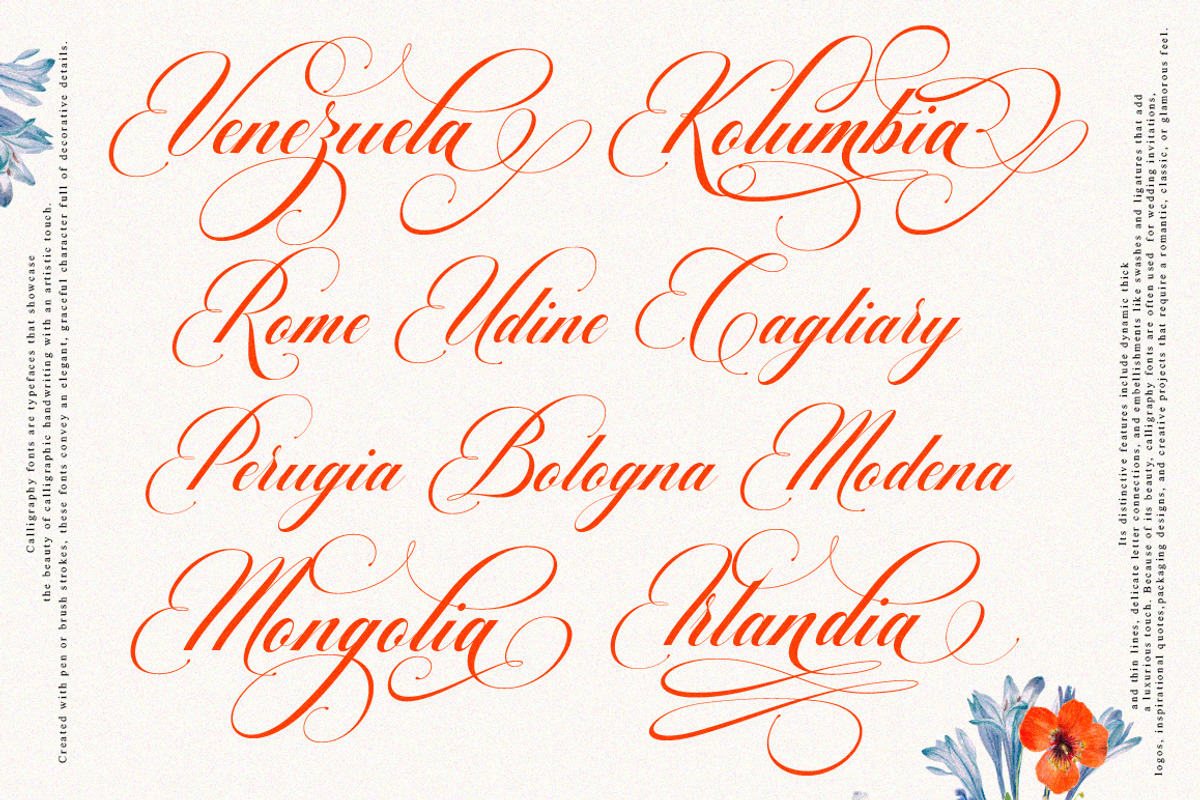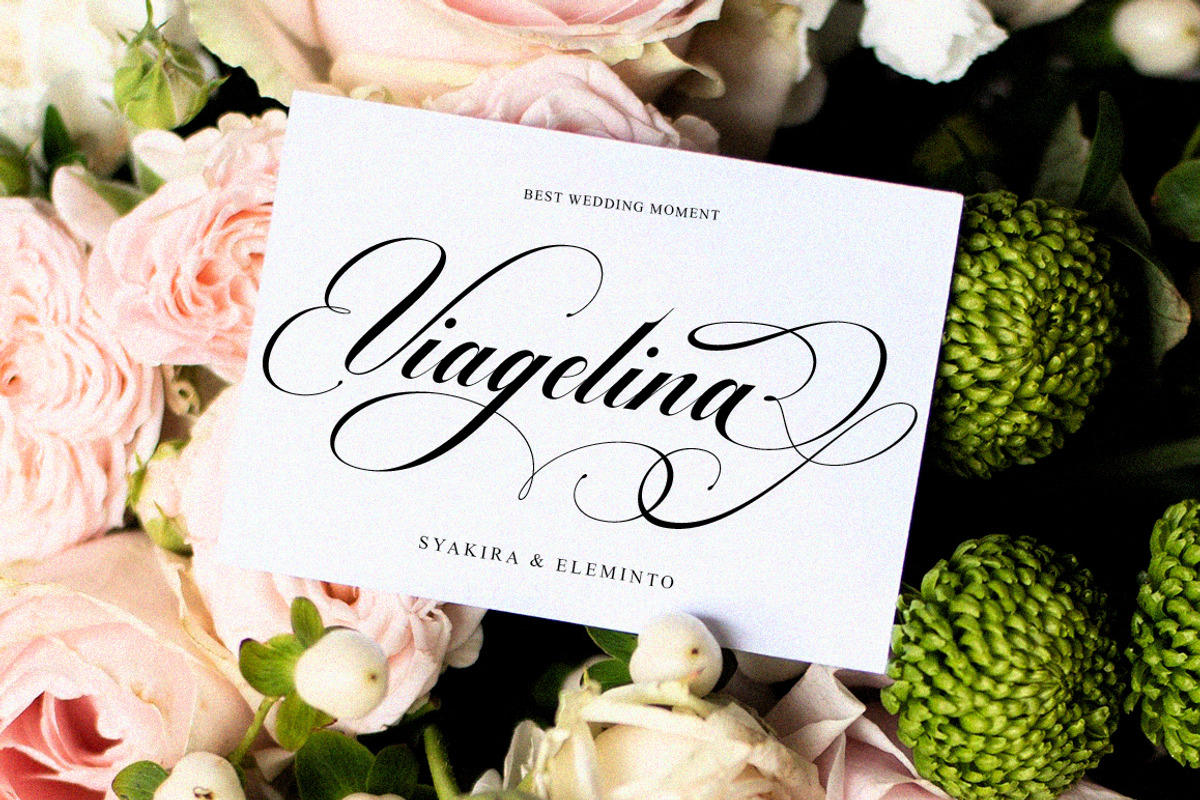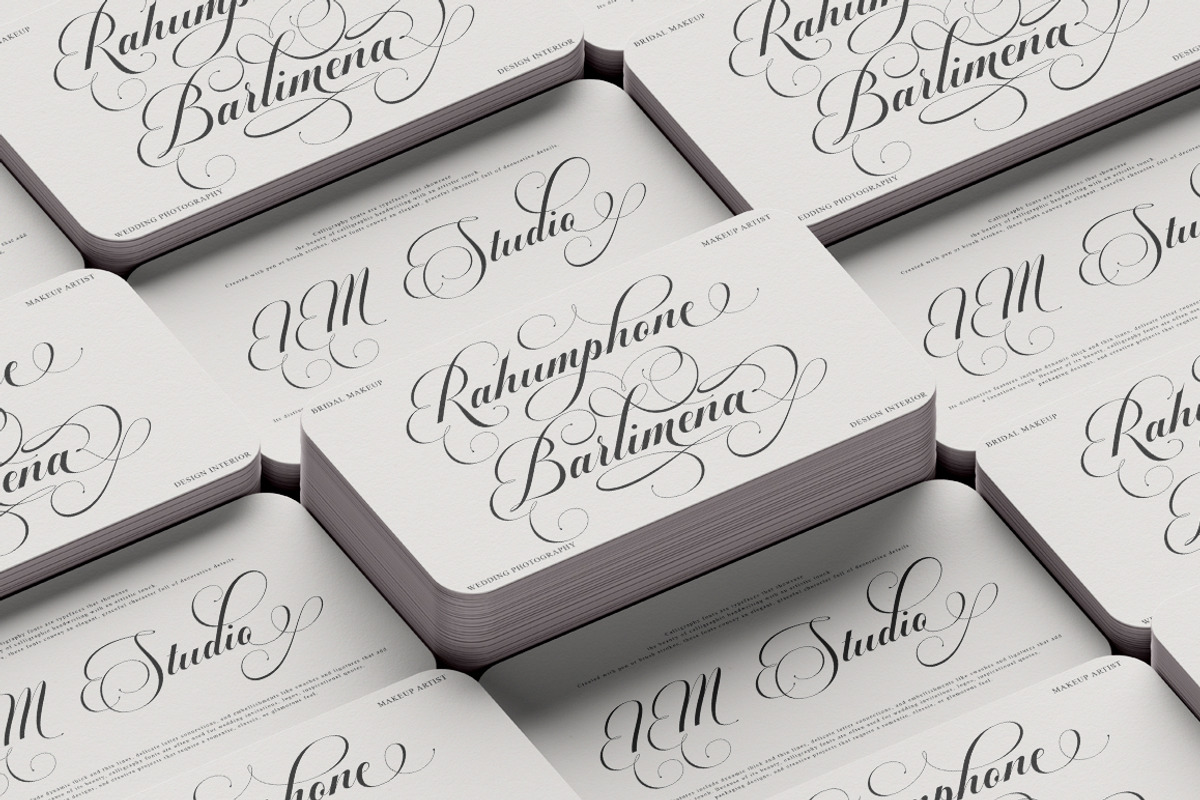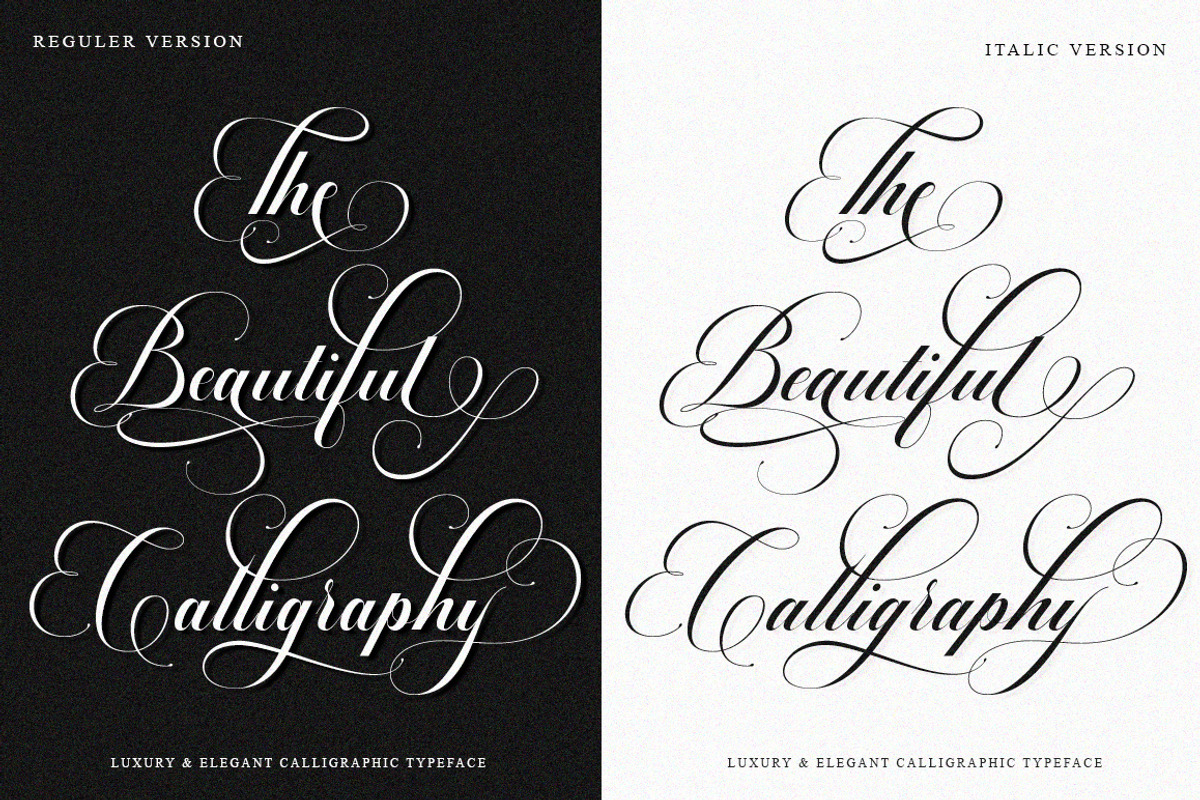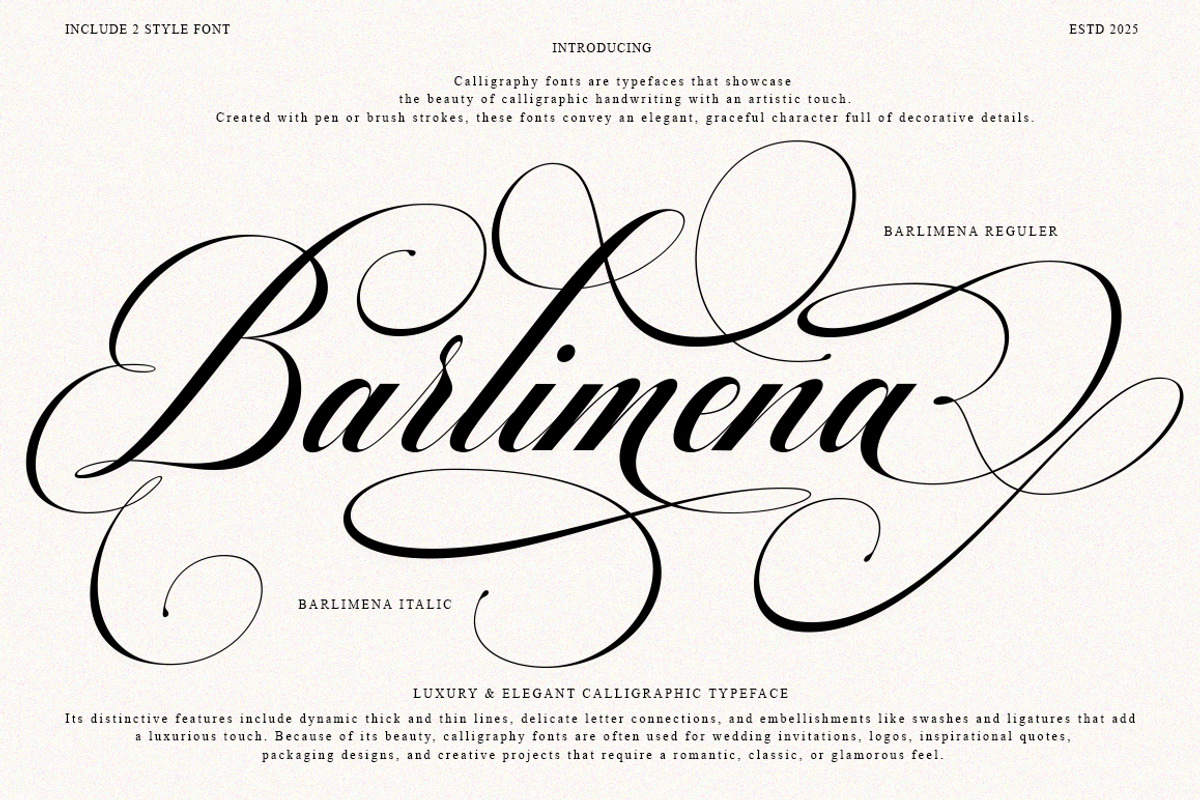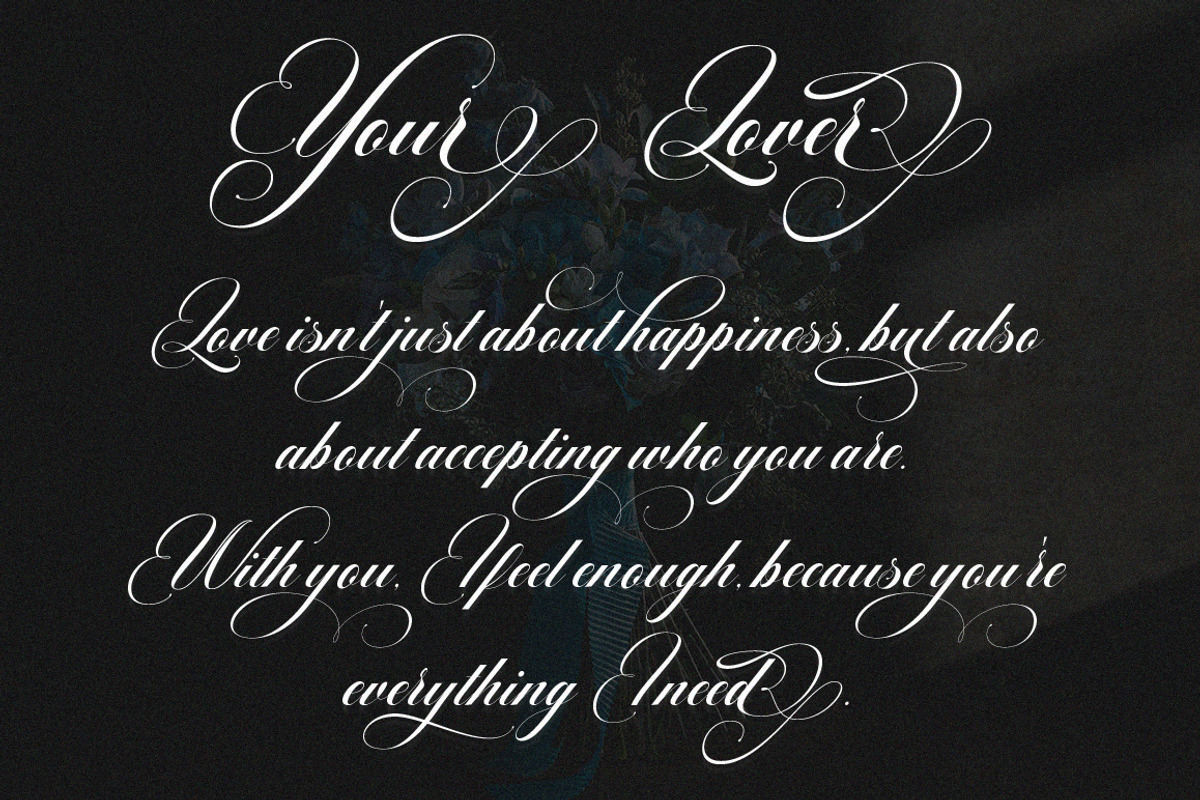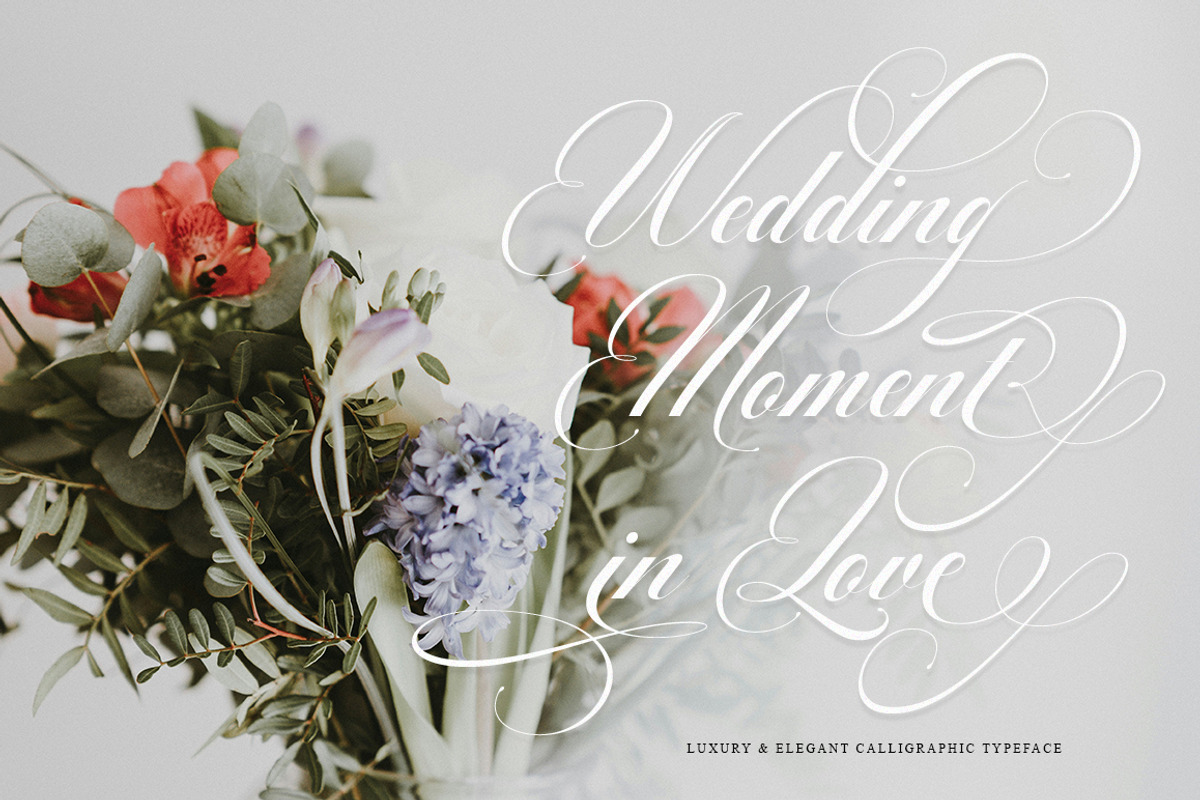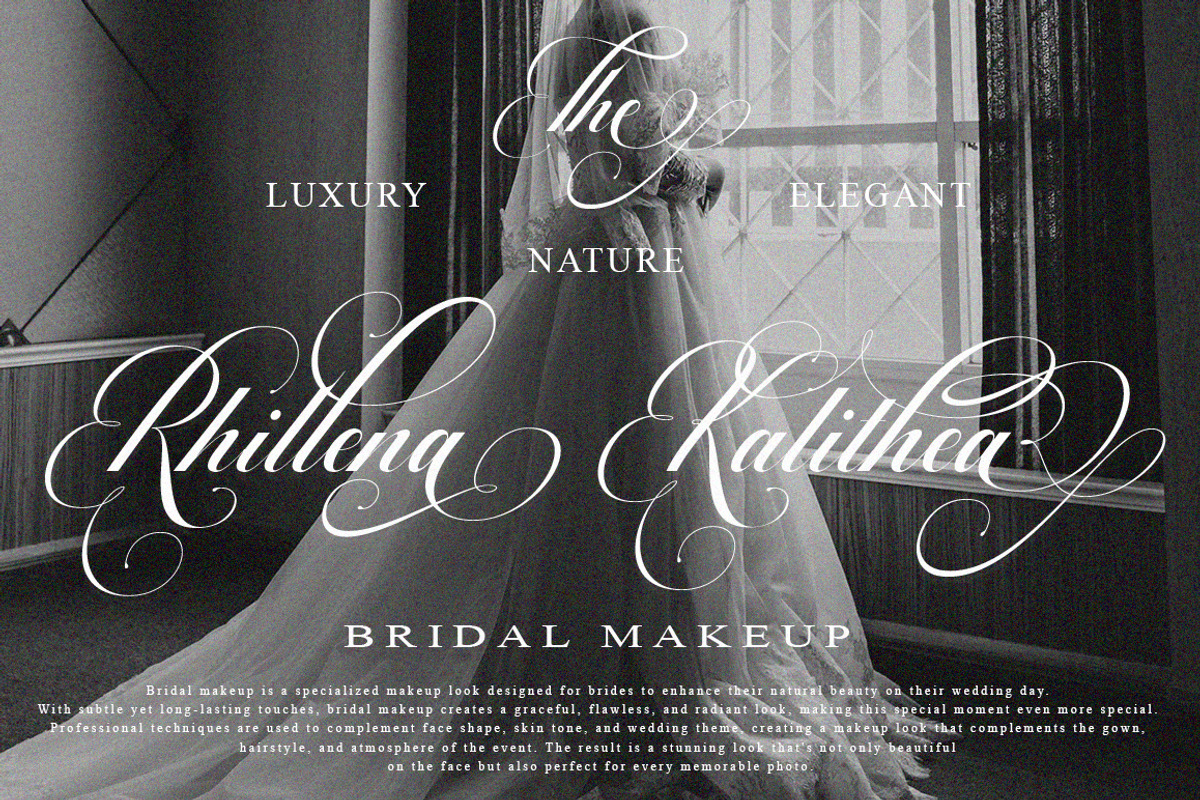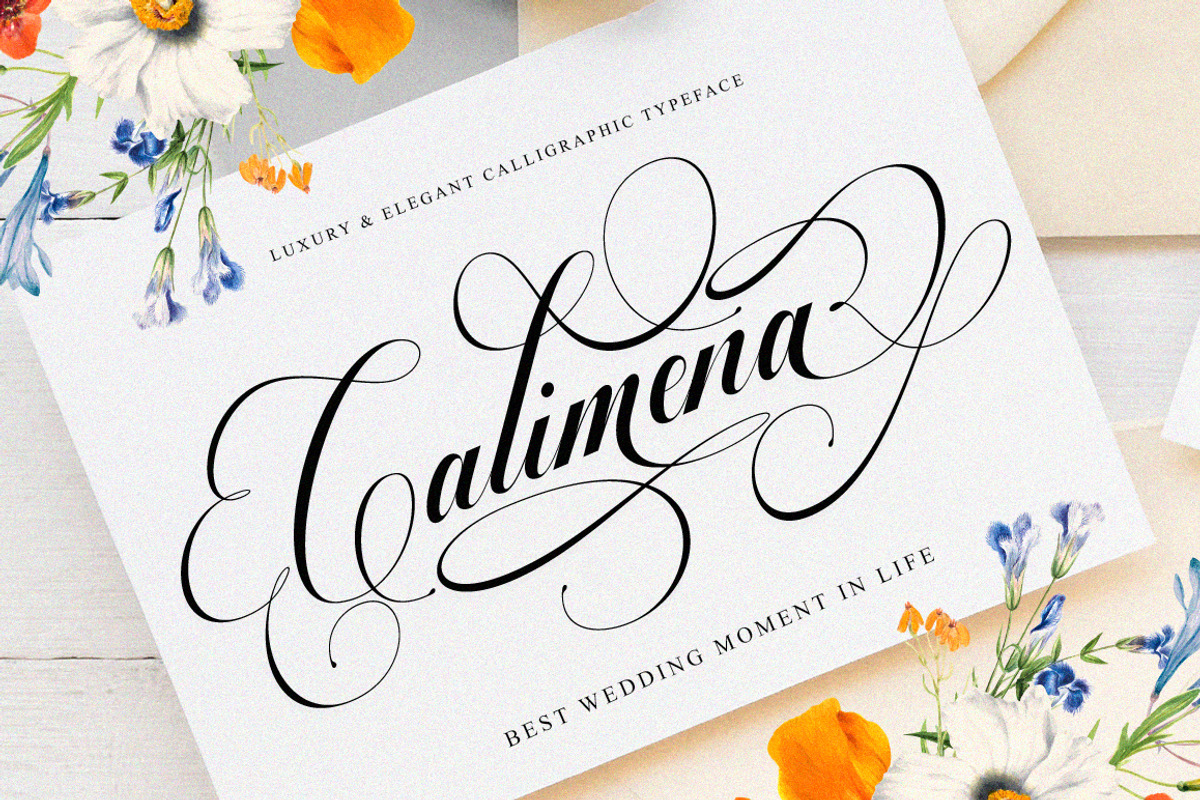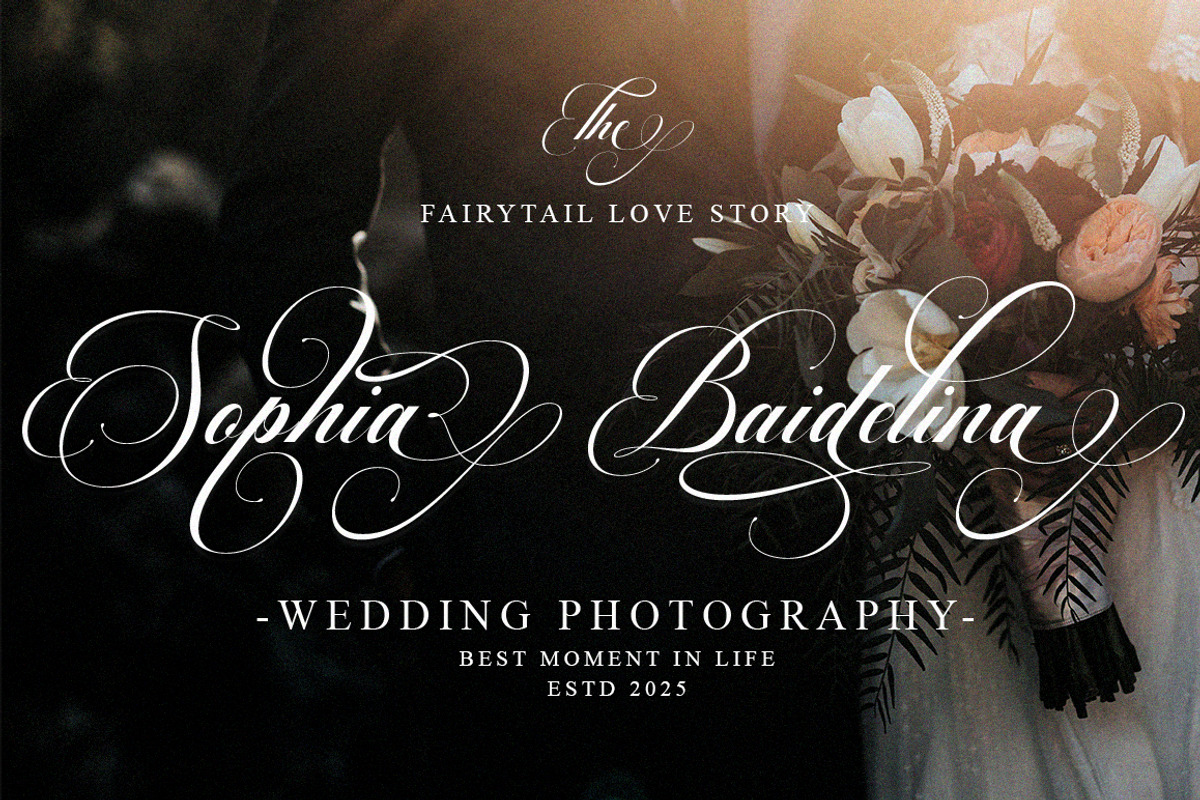
Barlimena Script
Barlimena Script Italic & Regular Barlimena Script is an elegant script typeface that blends the timeless beauty of classic copperplate calligraphy with a modern decorative touch. Designed with meticulous detail, this typeface presents a stylish, graceful, and sophisticated look. Its smooth curves, refined letterforms, and feminine charm make it both glamorous and easy to read, enhanced by a variety of beautiful joins and stylistic alternatives.
Perfect for both formal and creative applications, Barlimena Script is perfect for invitations, logos, fashion branding, makeup and beauty products, restaurant menus, stationery, book or magazine titles, greeting and wedding cards, packaging, labels, and various advertising purposes.